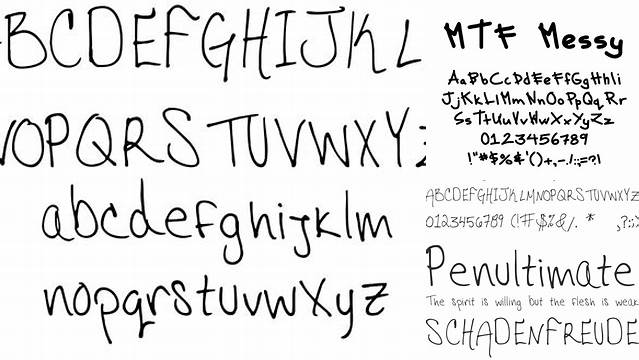
Hey font enthusiasts! Are you looking to add a personal, authentic touch to your designs? Nothing beats the charm of messy handwriting fonts. These fonts can bring a unique, human element to your projects, making them stand out from the crowd. In this article, we'll dive into the world of free messy handwriting fonts, exploring their uses, benefits, and where you can find the best ones. So, let's get started, guys!
1. The Appeal of Messy Handwriting Fonts
Messy handwriting fonts have a certain je ne sais quoi that perfectly mimics the imperfections of human writing. Unlike clean, structured fonts, these fonts bring a relaxed, personal vibe to any project. Imagine adding a handwritten note to a digital invitation or creating a logo that feels genuinely handcrafted. The appeal lies in the authenticity and warmth that these fonts convey. Whether it's for branding, invitations, social media graphics, or even website design, using a messy handwriting font can make your work feel more approachable and real.
What Makes Messy Fonts So Special?
The beauty of messy handwriting fonts lies in their imperfections. Think about it – no one's handwriting is perfectly uniform. There are slight variations in letterforms, spacing, and stroke thickness, and that’s what makes it unique. These fonts capture that essence, giving a natural, unpolished feel that's hard to replicate with standard typefaces. This characteristic is particularly useful in designs where you want to convey a sense of informality, creativity, or intimacy. For example, a messy handwriting font can make a thank-you note feel more personal or a website header seem less corporate and more inviting.
Where Can You Use Them?
The versatility of messy handwriting fonts is impressive. They can be used in a wide range of applications, from digital to print. Here are a few ideas:
- Invitations: Add a personal touch to wedding invitations, party invites, or save-the-dates.
- Logos and Branding: Create a memorable brand identity that feels authentic and approachable.
- Social Media Graphics: Make your posts stand out with handwritten quotes and messages.
- Website Design: Use them for headings, subheadings, or even body text to create a unique online experience.
- Greeting Cards: Craft heartfelt cards with a personal handwritten touch.
- Marketing Materials: Add a human element to brochures, flyers, and advertisements.
By understanding the appeal and versatility of messy handwriting fonts, you can start to see how they can elevate your designs and bring a fresh perspective to your projects.
2. Key Characteristics of Messy Handwriting Fonts
So, what exactly defines a messy handwriting font? It's not just about being illegible! These fonts have specific characteristics that make them stand out and evoke the feeling of natural handwriting. Let's explore the key features that define these unique typefaces.
Irregular Letterforms
One of the defining characteristics of messy handwriting fonts is their irregular letterforms. Unlike the consistent and uniform shapes of standard fonts, these fonts feature letters that vary in size, shape, and slant. This irregularity mimics the natural variations you find in human handwriting. Some letters might be slightly taller or wider, while others might have a unique curve or loop. These subtle differences add to the font's authentic and handcrafted feel. This inconsistency is what makes the font feel so human and less mechanical.
Variations in Stroke Thickness
Another key characteristic is the variation in stroke thickness. In handwritten text, the thickness of the lines can change depending on the pressure applied to the pen or pencil. Messy handwriting fonts often replicate this effect, with some strokes appearing thicker and bolder than others. This adds depth and dimension to the text, making it look more natural and dynamic. These variations can make the font look like it was written with a real pen or brush, adding to its charm.
Natural Spacing and Kerning
The spacing between letters, also known as kerning, is crucial in creating a realistic handwriting effect. Messy handwriting fonts often feature irregular spacing, with some letters appearing closer together than others. This mimics the natural variations in hand-written text, where spacing isn't always perfectly uniform. Some fonts might even include ligatures, where two or more letters are connected, further enhancing the handwritten feel. The kerning is carefully designed to look random and natural, which adds to the overall messy aesthetic.
Imperfections and Flourishes
Finally, many messy handwriting fonts include imperfections and flourishes that add to their unique character. These might include small scribbles, loops, or extra strokes that mimic the natural quirks of handwriting. These little details can make a big difference in creating a font that truly feels handwritten. These imperfections can include things like slight smudges, irregular baselines, and overlapping strokes, which all contribute to the authentic look.
By understanding these key characteristics, you can better appreciate the artistry and craftsmanship that goes into creating a messy handwriting font. These elements work together to create a typeface that’s not just legible but also full of character and charm.
Creating a Sense of Informality and Approachability
Messy handwriting fonts also create a sense of informality and approachability. They break down the barriers that more formal fonts can create, making your message feel more casual and conversational. This is particularly useful in situations where you want to connect with your audience on a personal level, such as in social media graphics, blog posts, or invitations. By using a messy handwriting font, you're essentially saying,